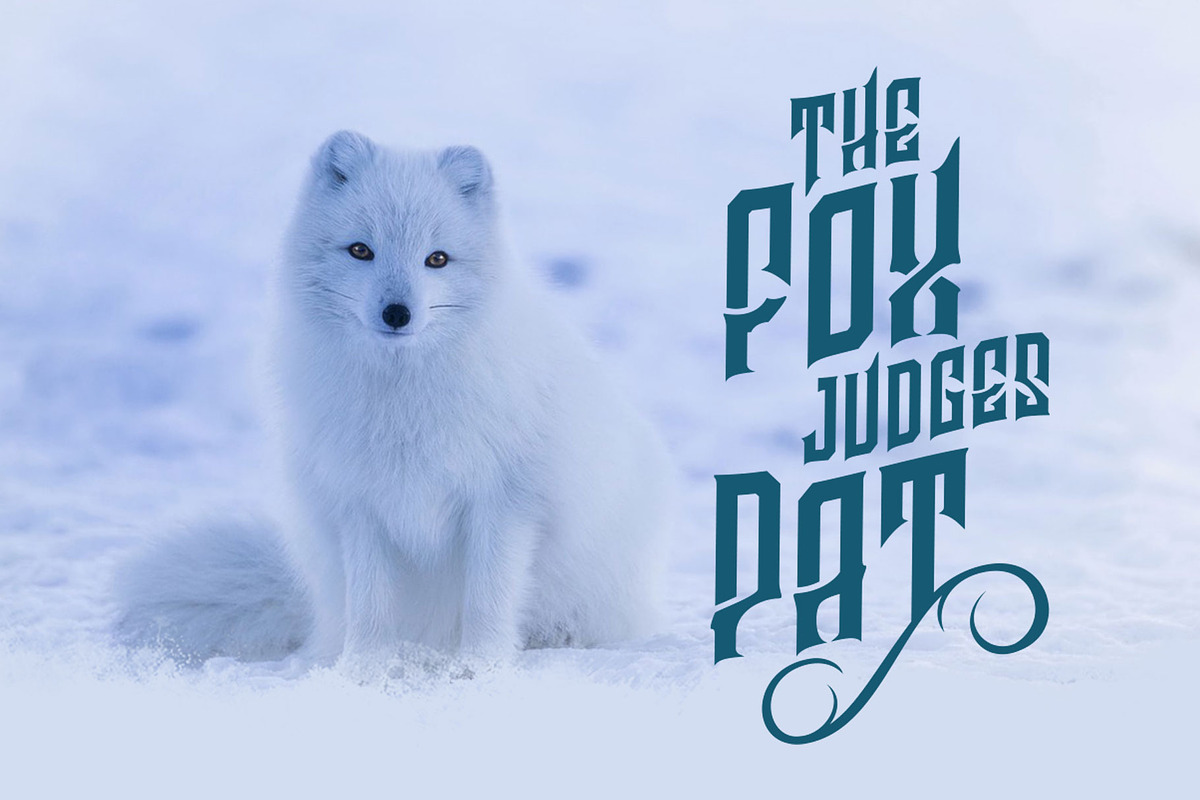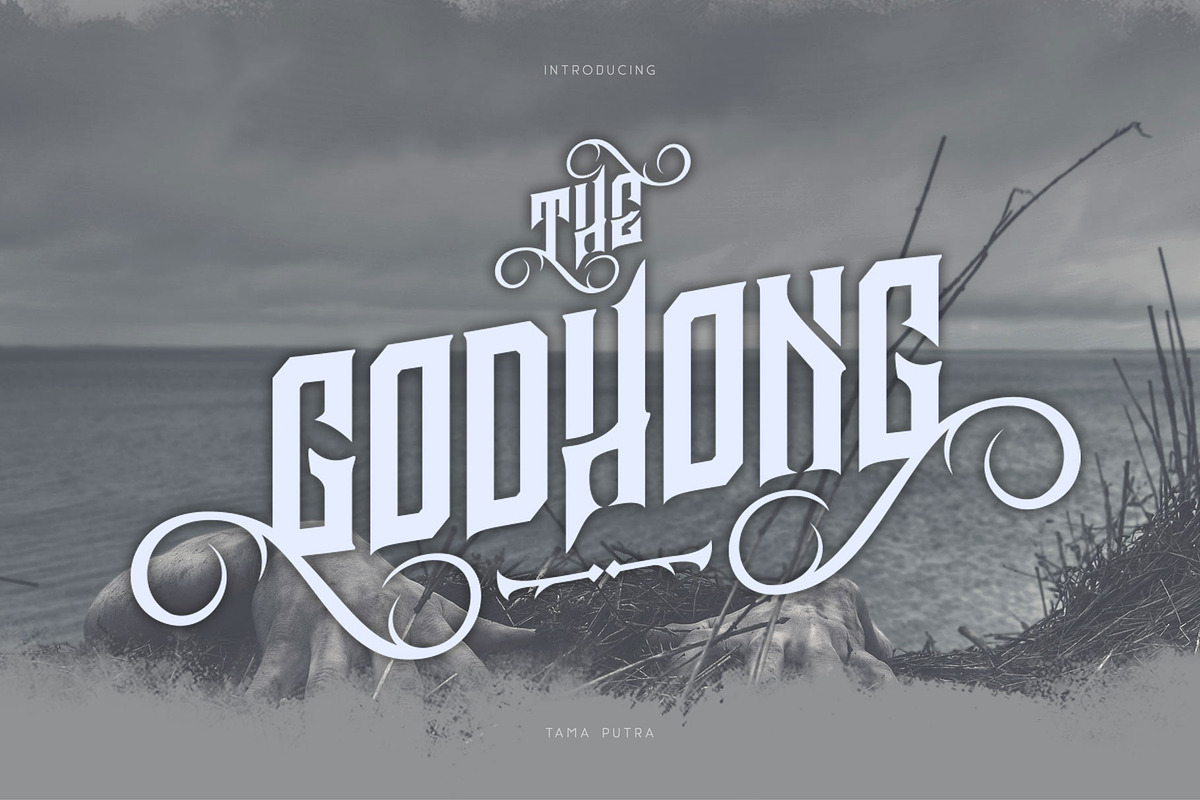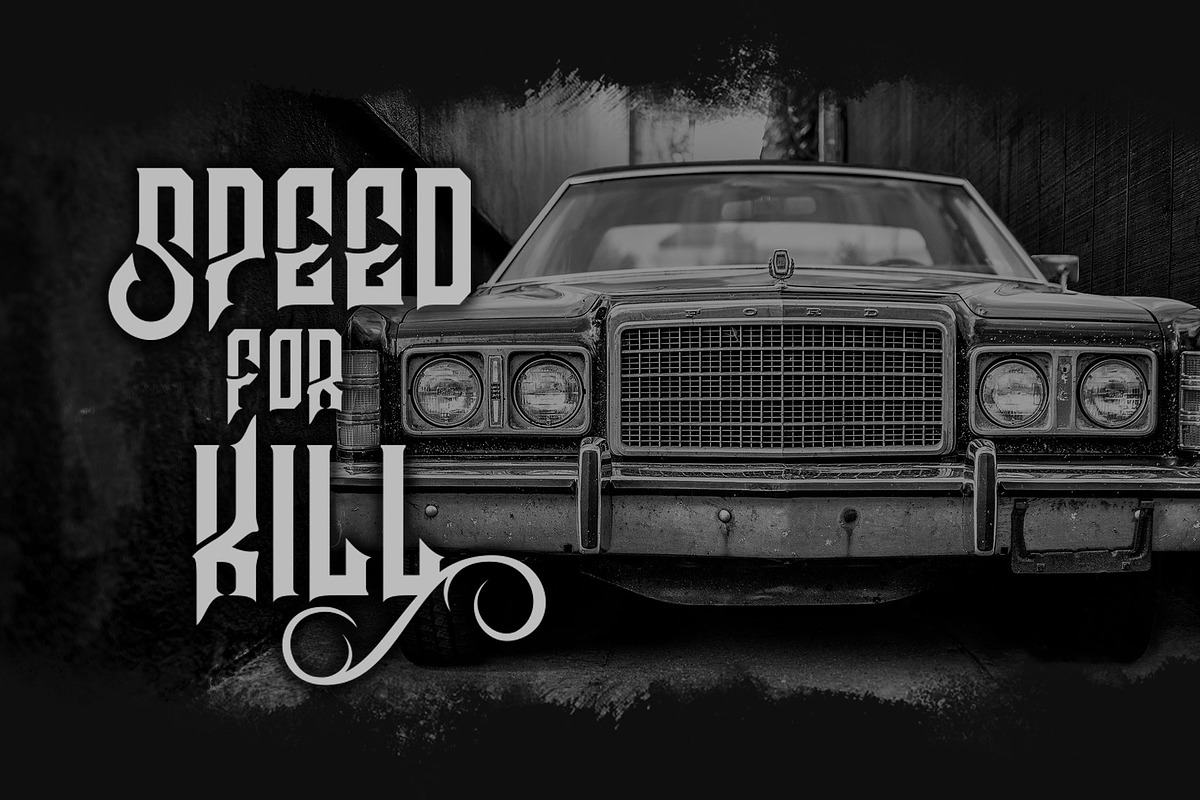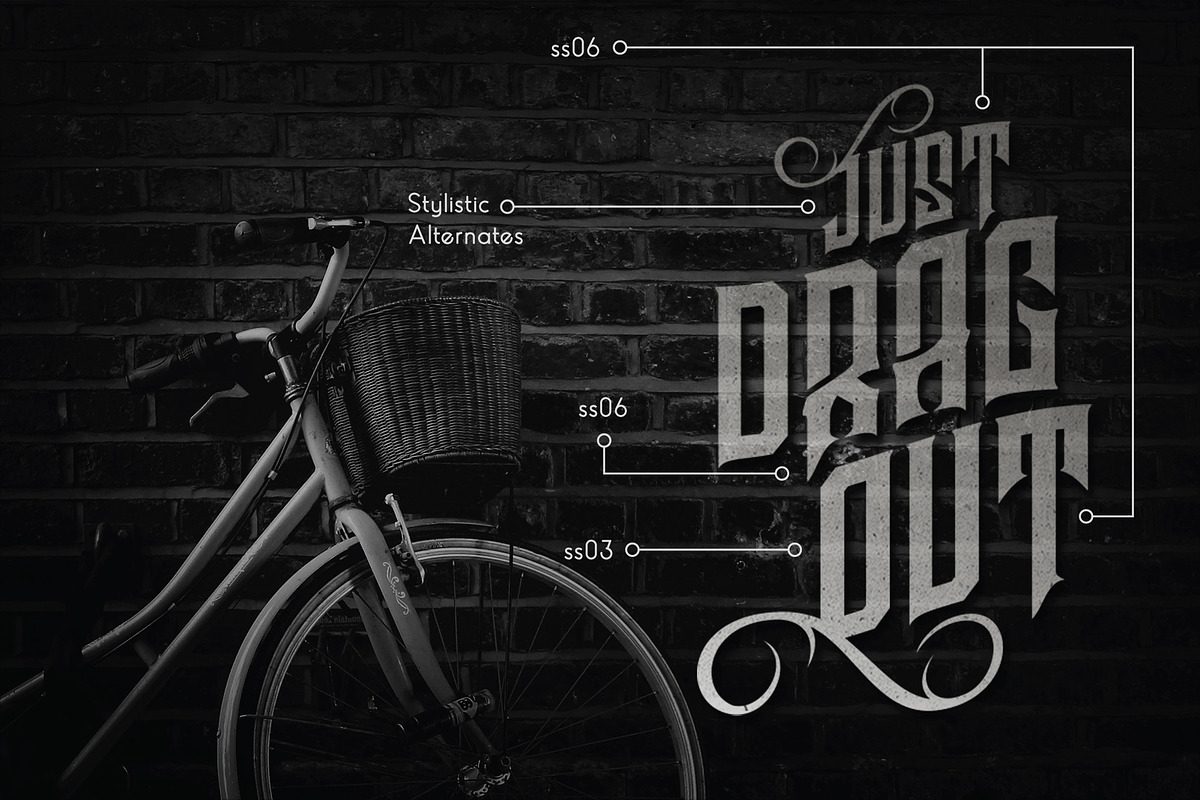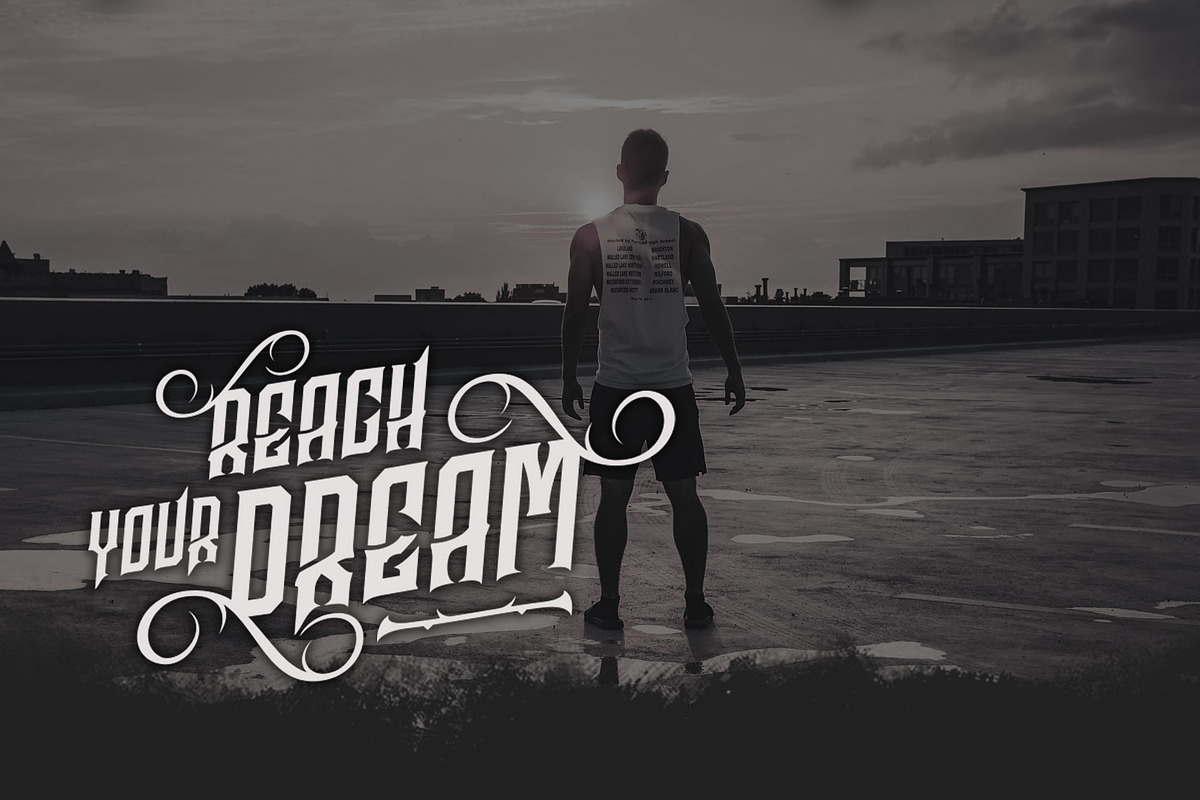
Godhong Decorative Font
Godhong Typeface
Godhong is a typeface inspired from gothic and rebel style.
It includes a full set of uppercase and lowercase letters as well as multi-lingual and currency support, numerals, punctuations, alternates, ligatures and some extra glyphs.
- Character Set A-Z (Uppercase & Lowercase)
- Titling
- ss01, ss02, ss03, ss04, ss05, ss06, ss07, ss08, ss09, ss10
Godhong typeface is suitable font for creating beautiful things and many creative work.